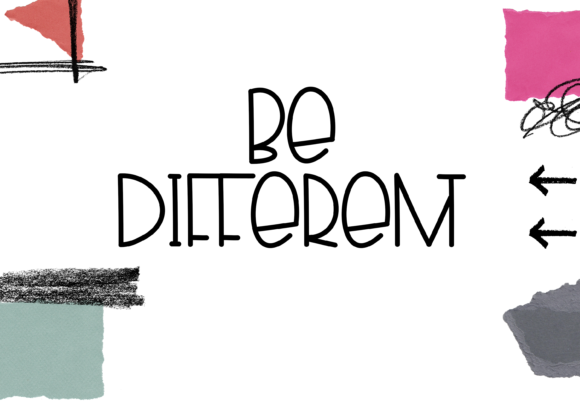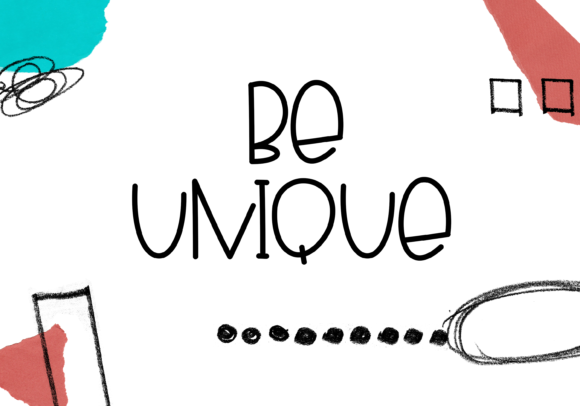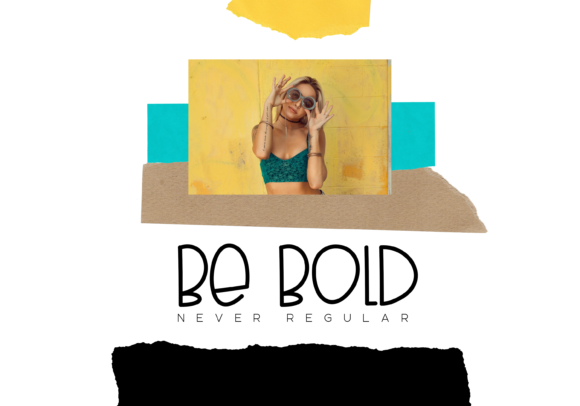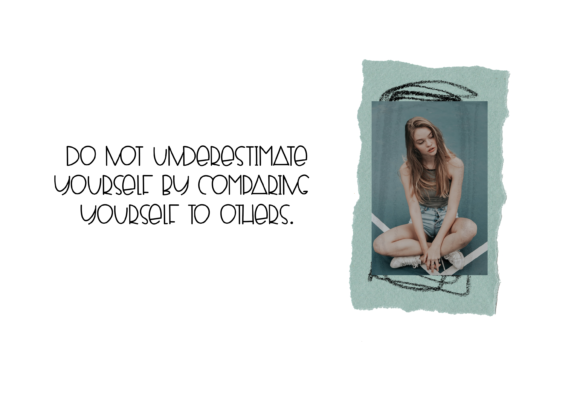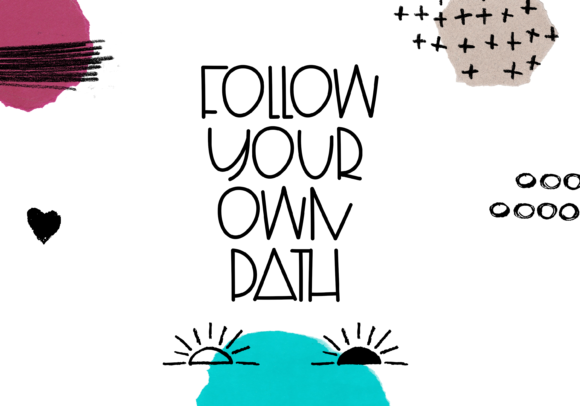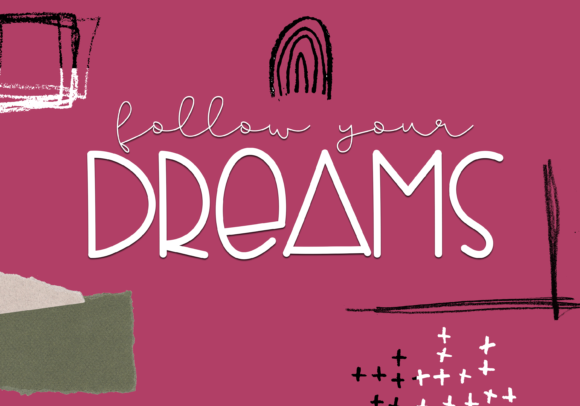
Introduction to Fragments Font
Fragments is a fun and bold display font with a whimsical feel.
Get inspired by its lovely and authentic charm .
Key Features of Fragments Font
Why Choose Fragments Font?